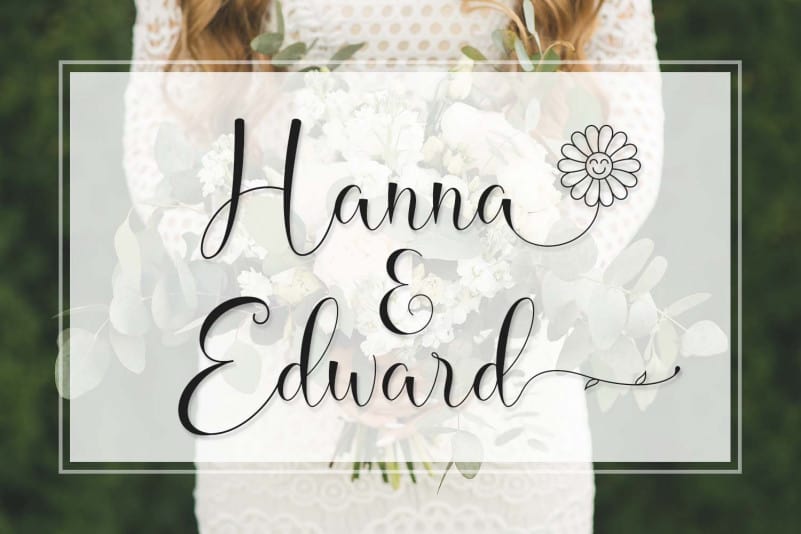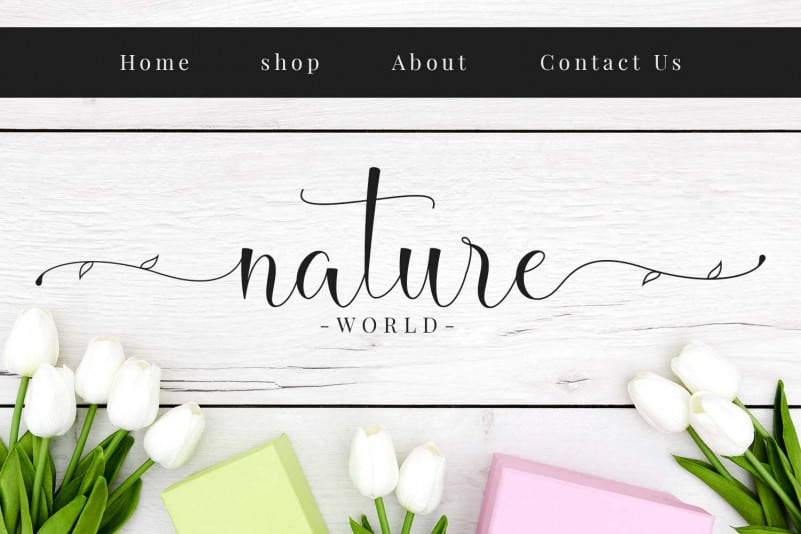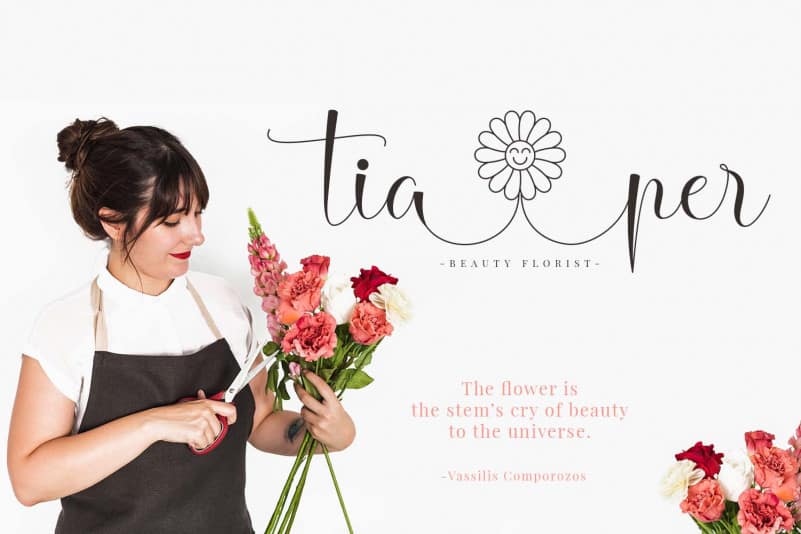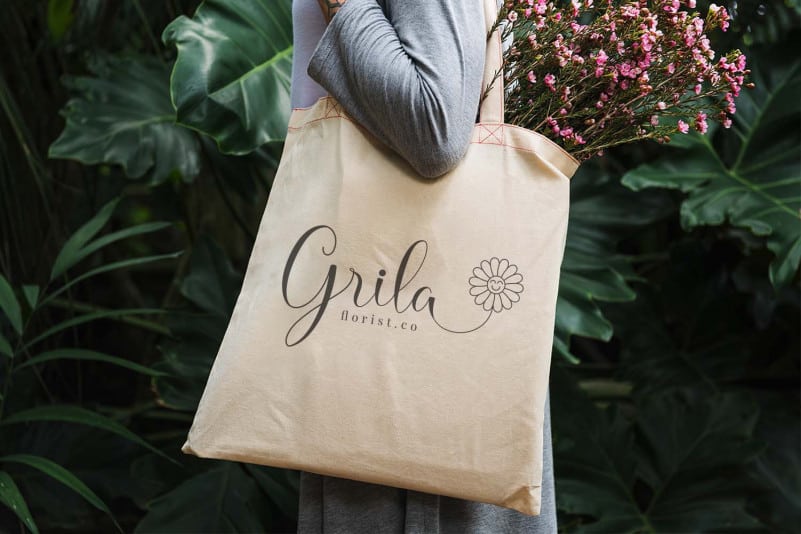
Hello Daisy Calligraphy Script is a flowering calligraphy font, will be suitable for crafting and any projects such as logo’s, branding projects, homeware designs, product packaging, mugs, quotes, posters, shopping bags, t-shirts, book covers, name card, invitation cards, greeting cards, label, photography, watermark, special events, and all your other lovely projects that need beautiful calligraphy taste.